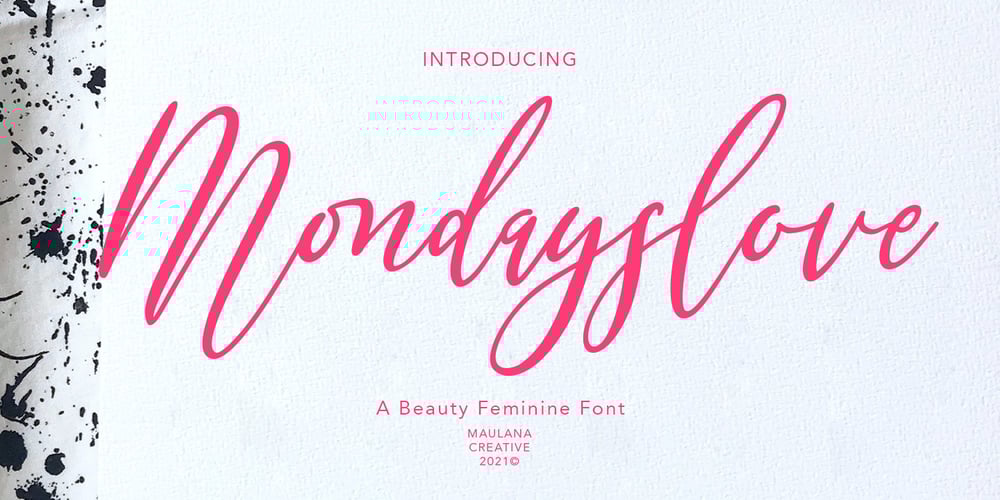
Mondayslove Font Family was designed by Gilang Maulana and published by Maulana Creative. Mondayslove contains 1 styles and family package options. Mondayslove is casual signature font, with feminine thin stroke, super slanted and fun character. It has Opentype features ligatures of character, To give you an extra creative work. Mondayslove font support multilingual more than 100+ language. This font is good for logo design, Social media, Movie Titles, Books Titles, a short text even a long text letter and good for your secondary text font with sans or serif. Make a stunning work with Mondayslove font. Cheers, MaulanaCreative